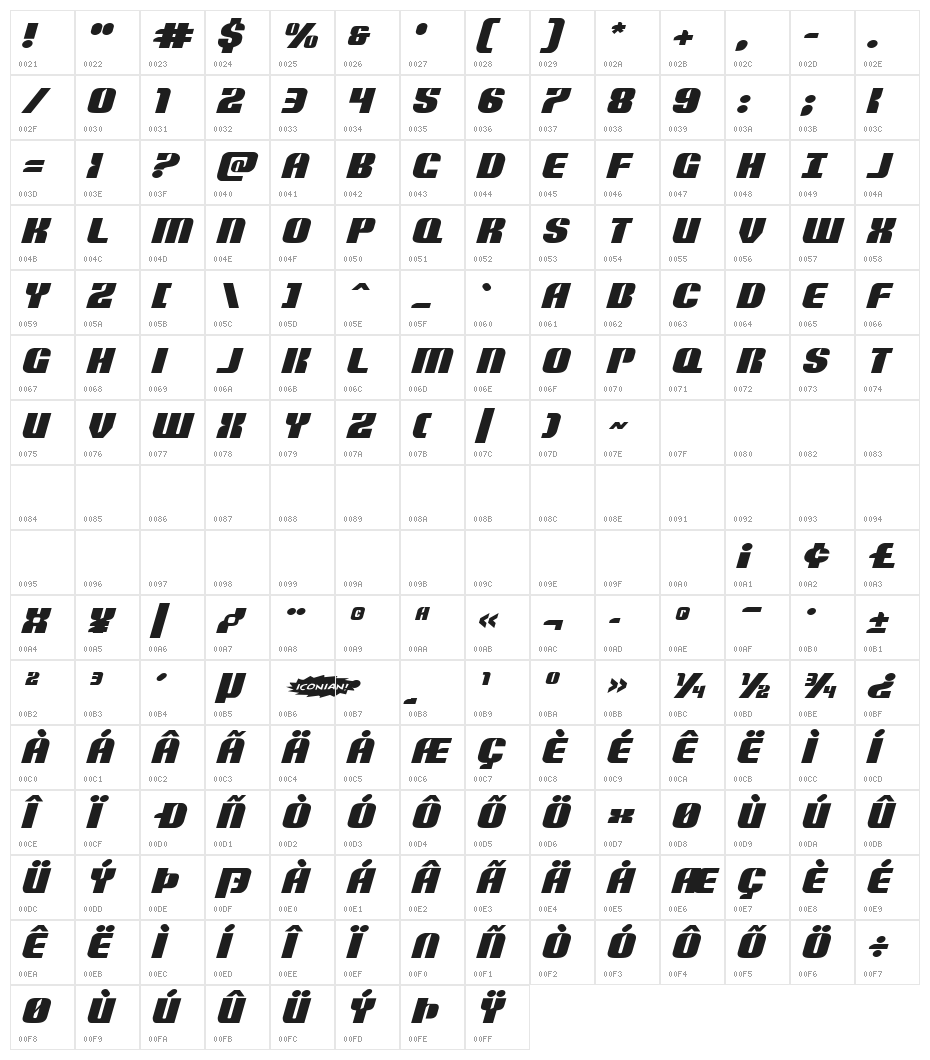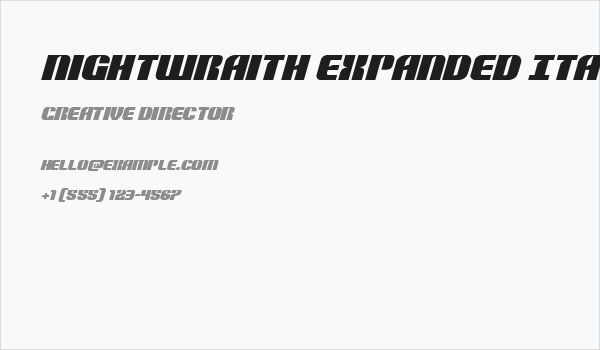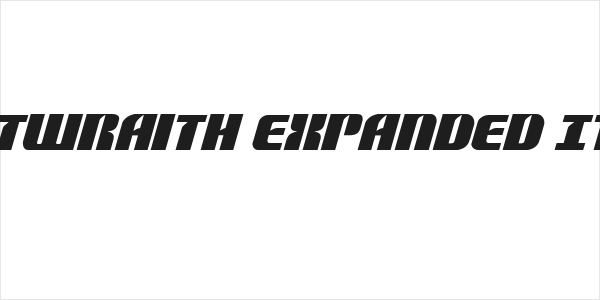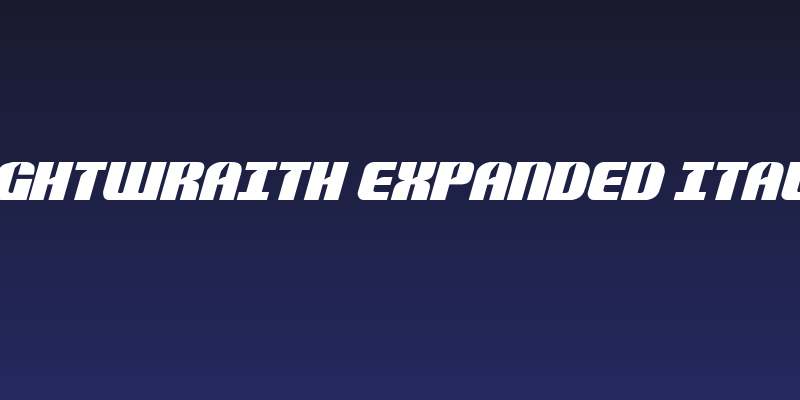
Nightwraith Expanded Italic Font
Nightwraith Expanded Italic Description
This font features a bold and dynamic style with an italic slant, giving it a sense of motion and energy. The characters are expanded, providing a wide and impactful appearance. The strokes are thick, contributing to a high contrast between the letterforms and the background. This font's design is modern and assertive, making it suitable for attention-grabbing applications. The uppercase and lowercase letters maintain a consistent style, while the numerals and special characters complement the overall aesthetic.
| Proposed Projects | Ideal for headlines, posters, branding, and any design requiring a strong visual impact. |